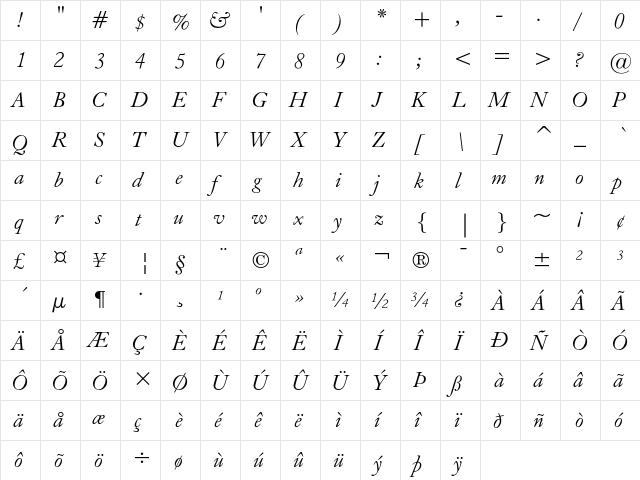
Caslon Old Face Italic
Design Context for Caslon Old Face Typeface
Caslon Old Face is a composed and adaptable typeface that performs quietly and consistently across a wide range of design contexts. The dynamic lean of this cut emphasises speed and emphasis in any layout.
Pro Tip: Use Caslon Old Face for emphasis, pull quotes, and subheadings where its slanted energy can add rhythm to the layout.